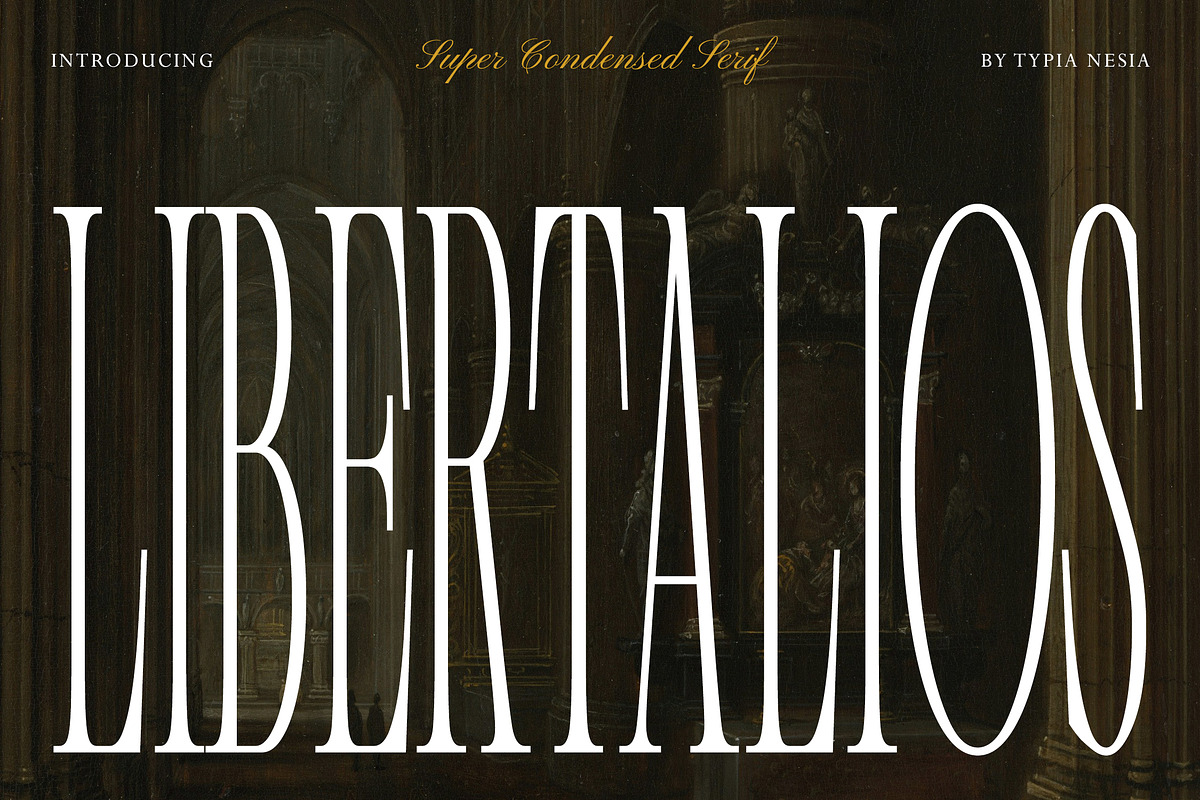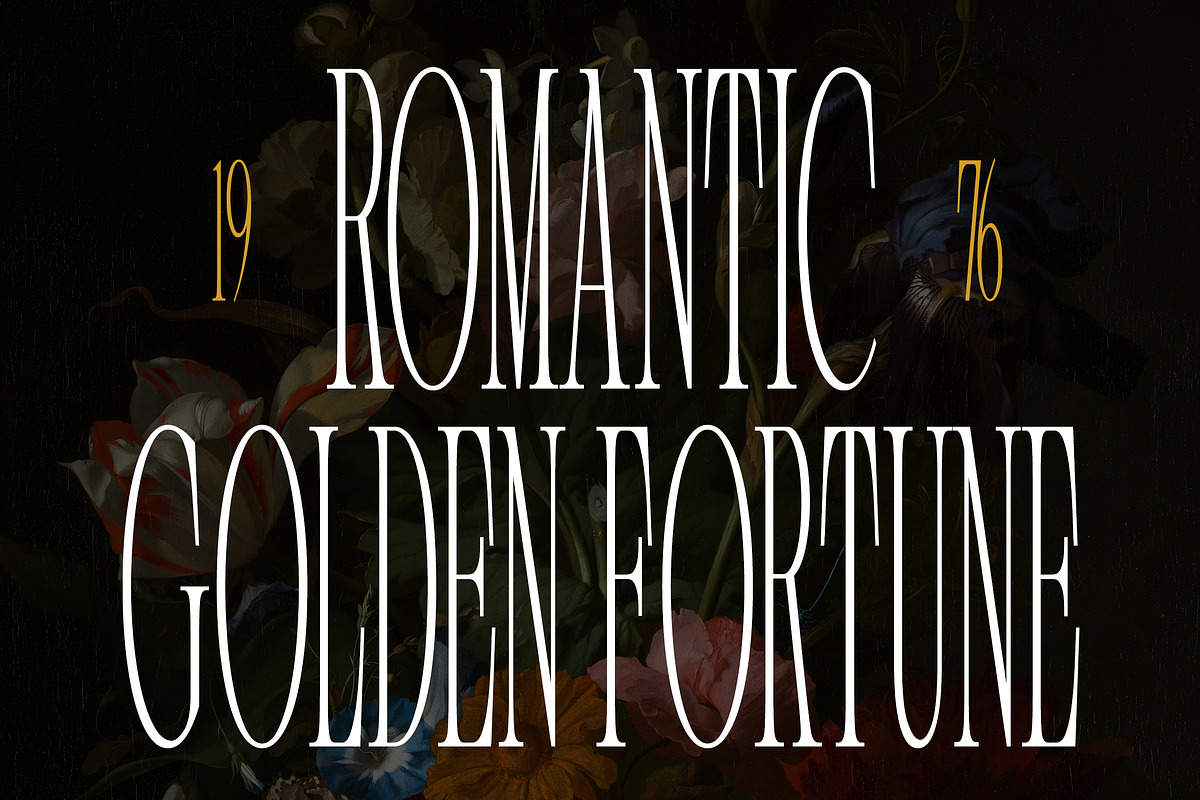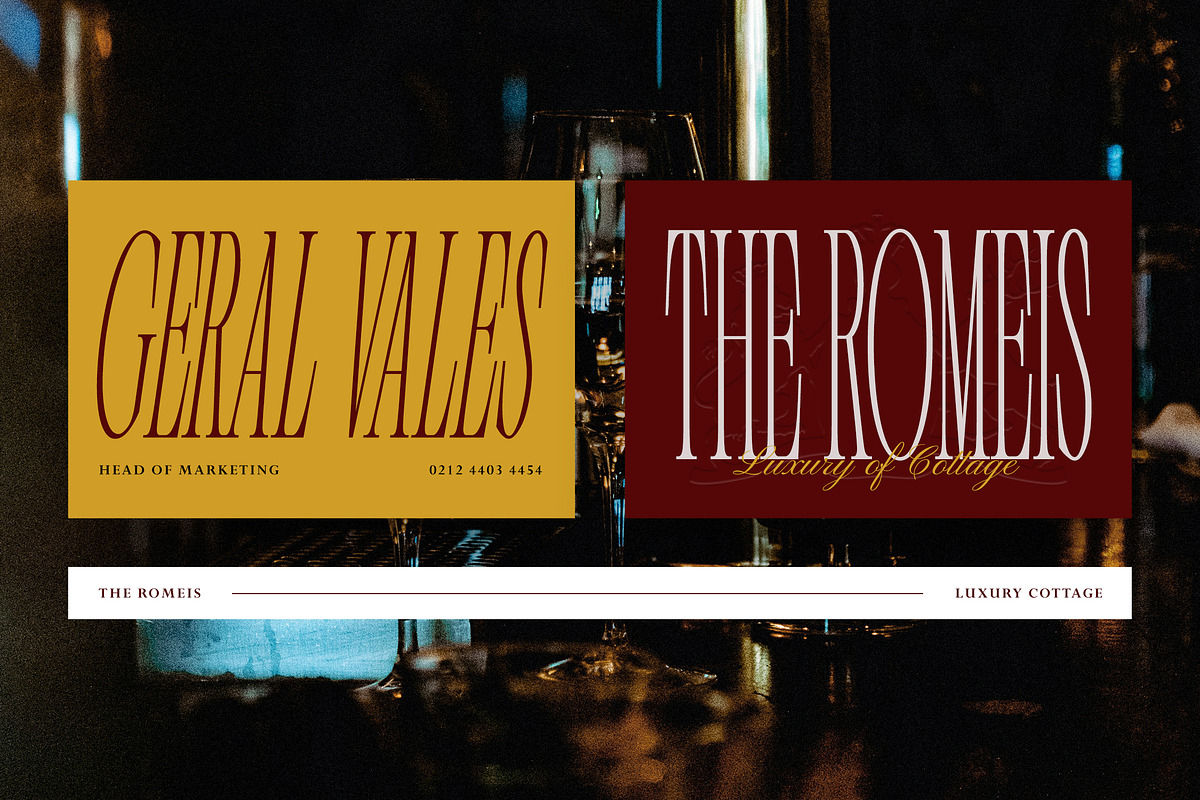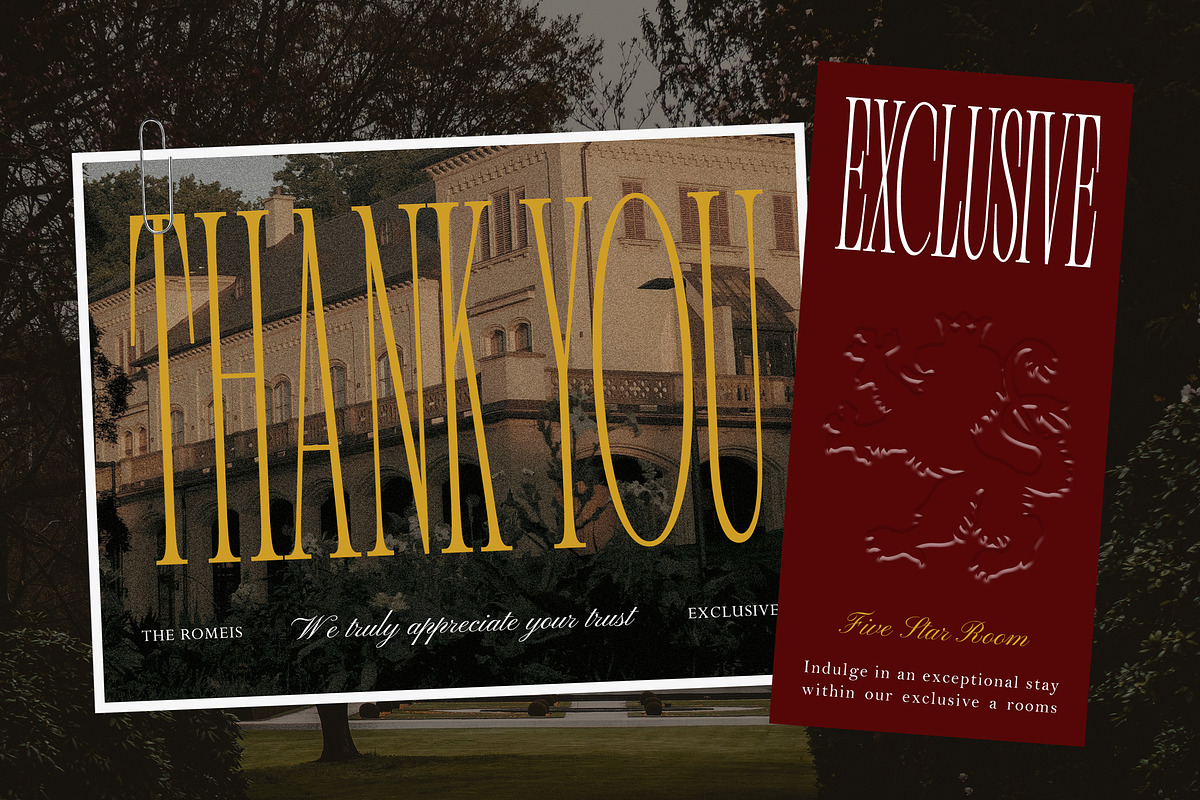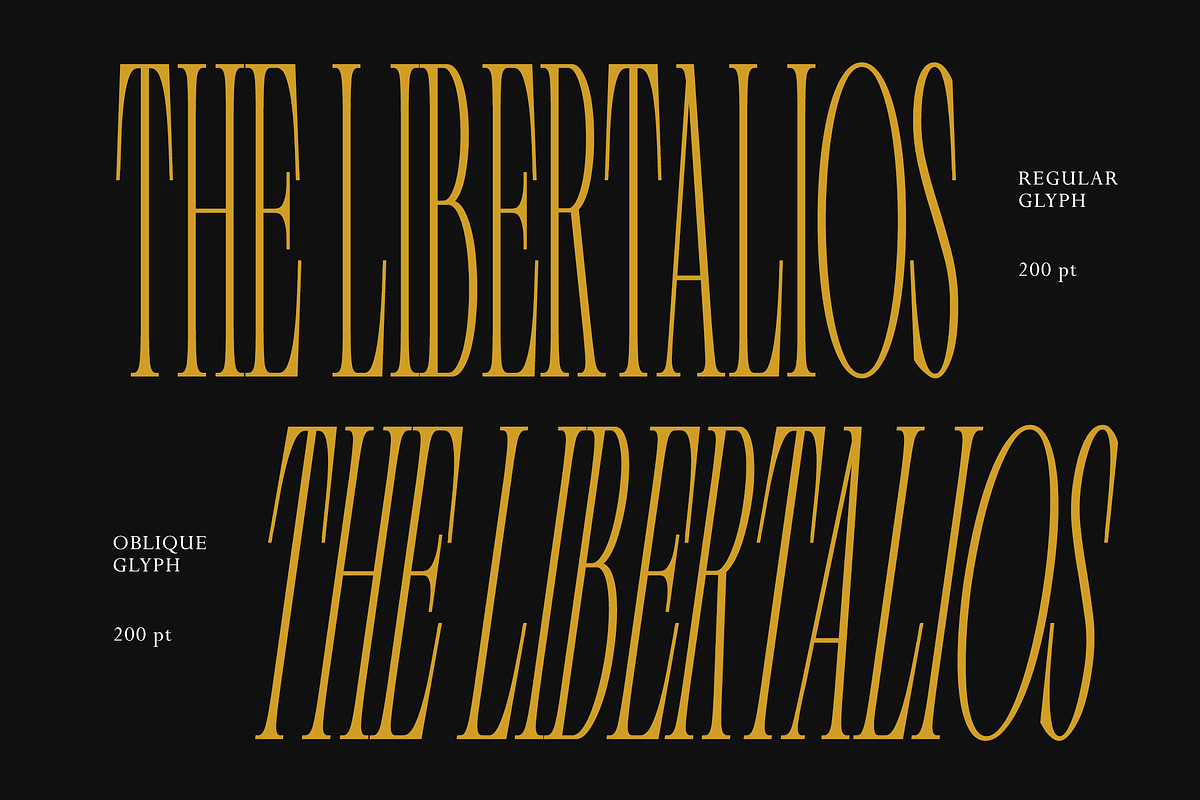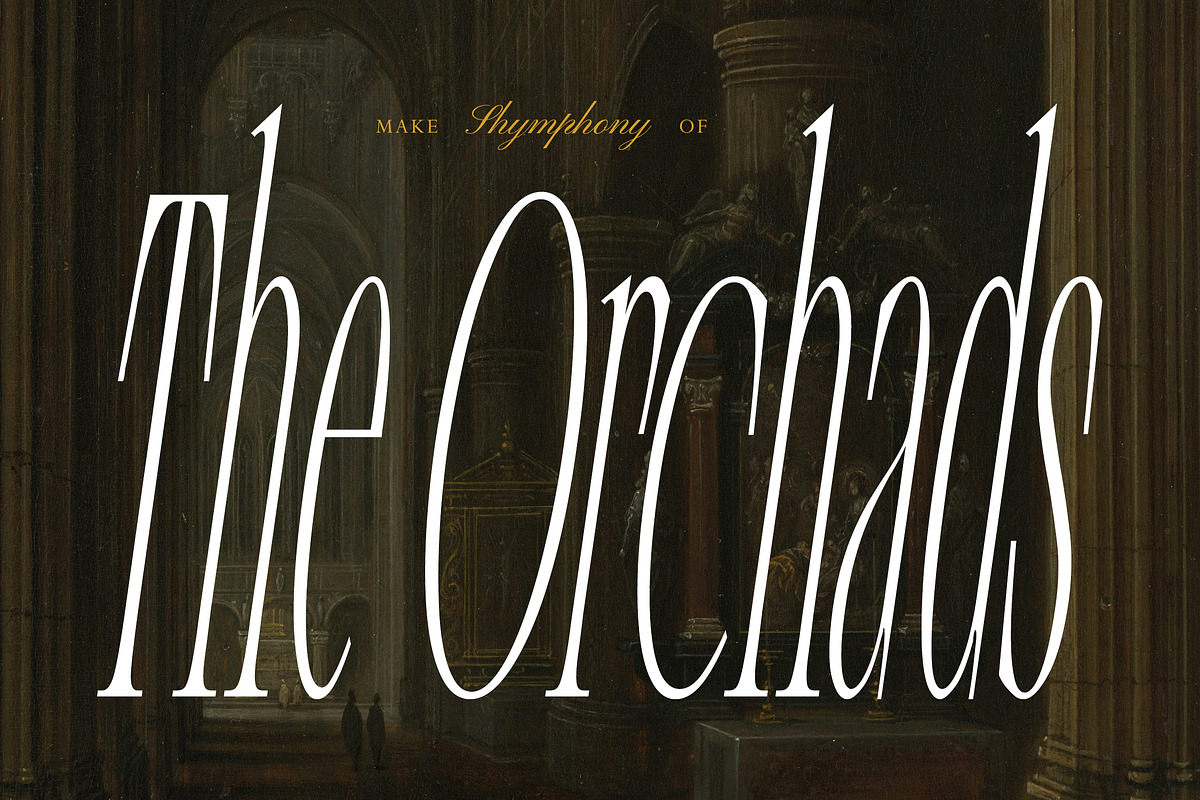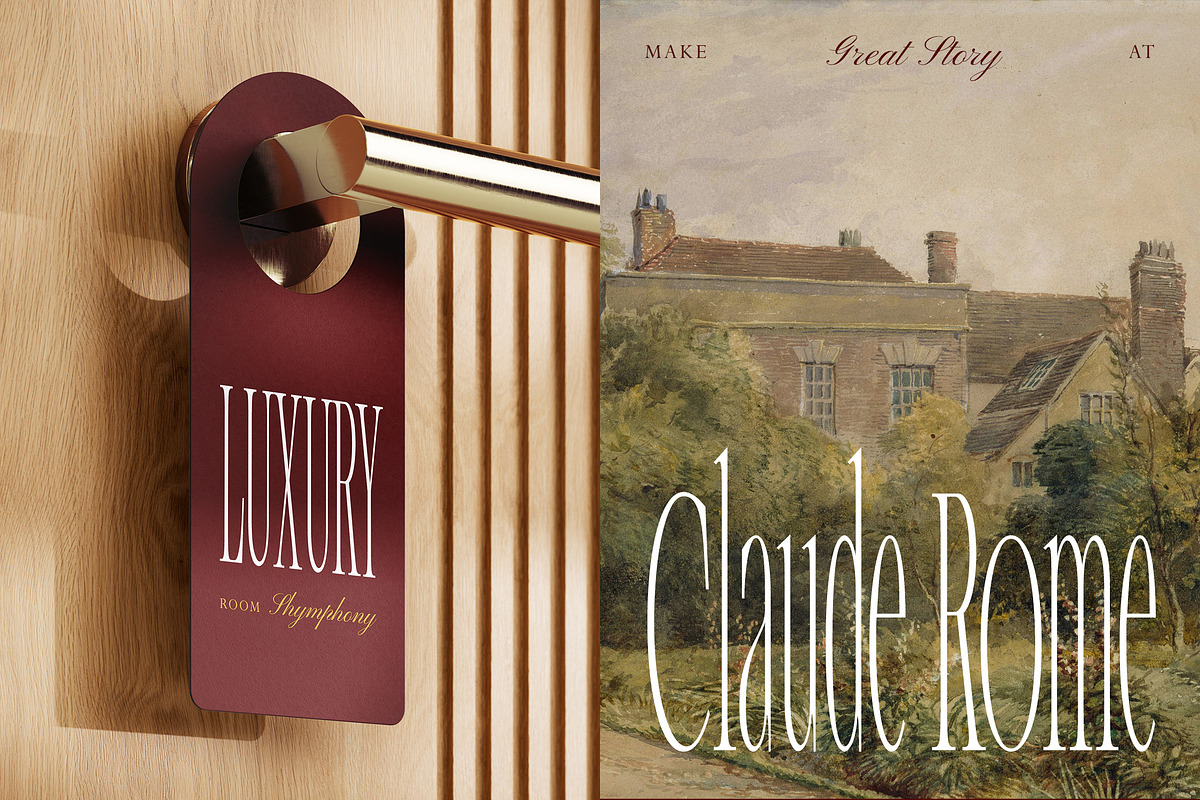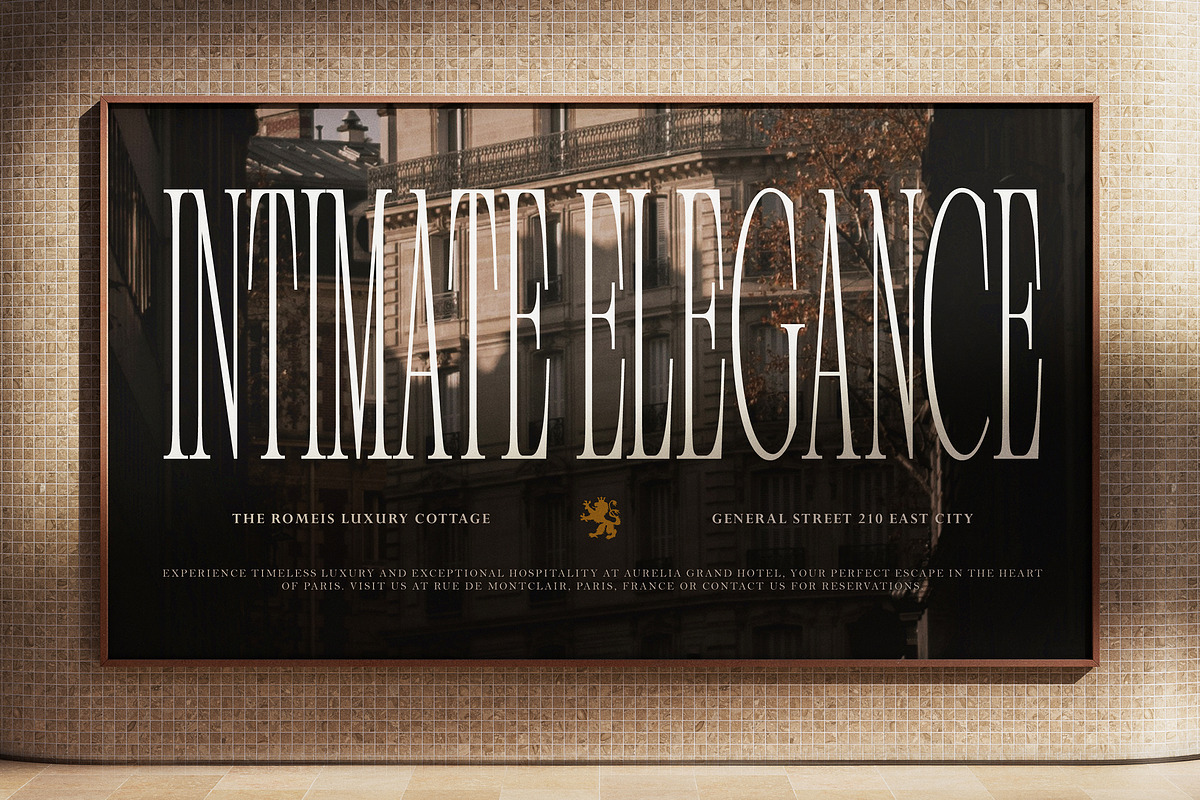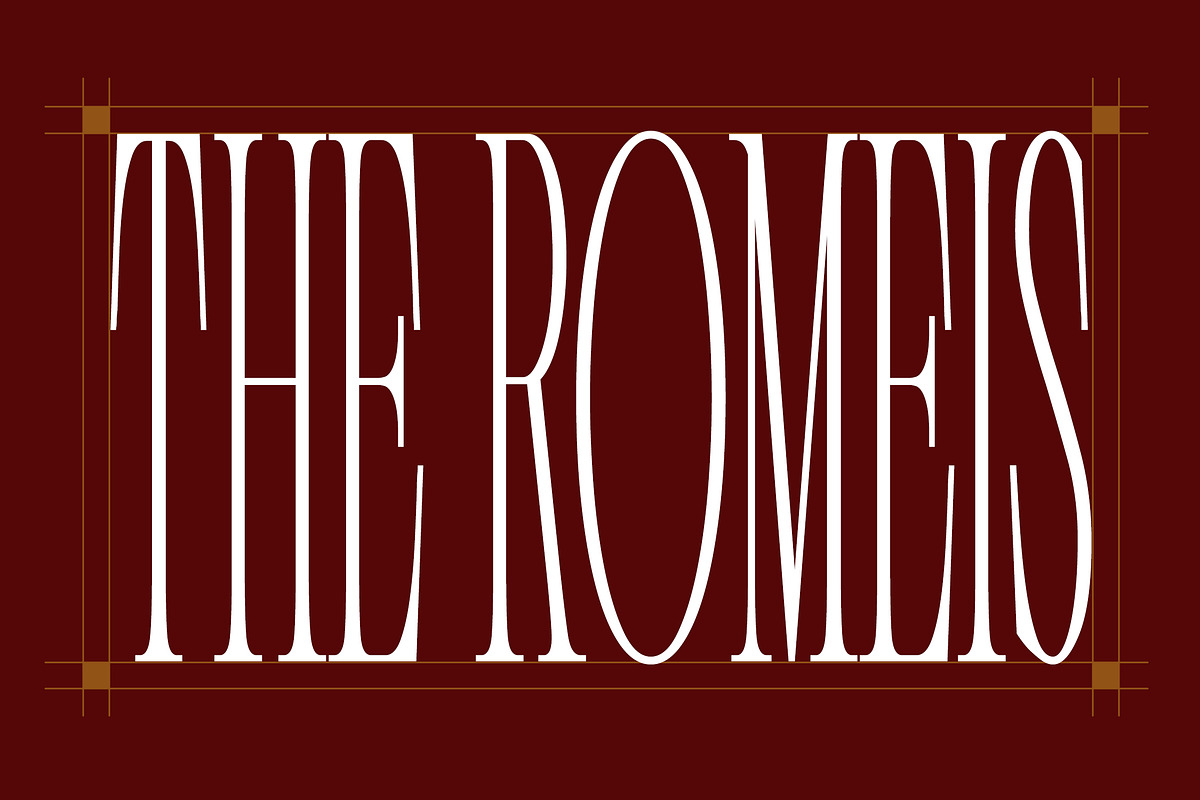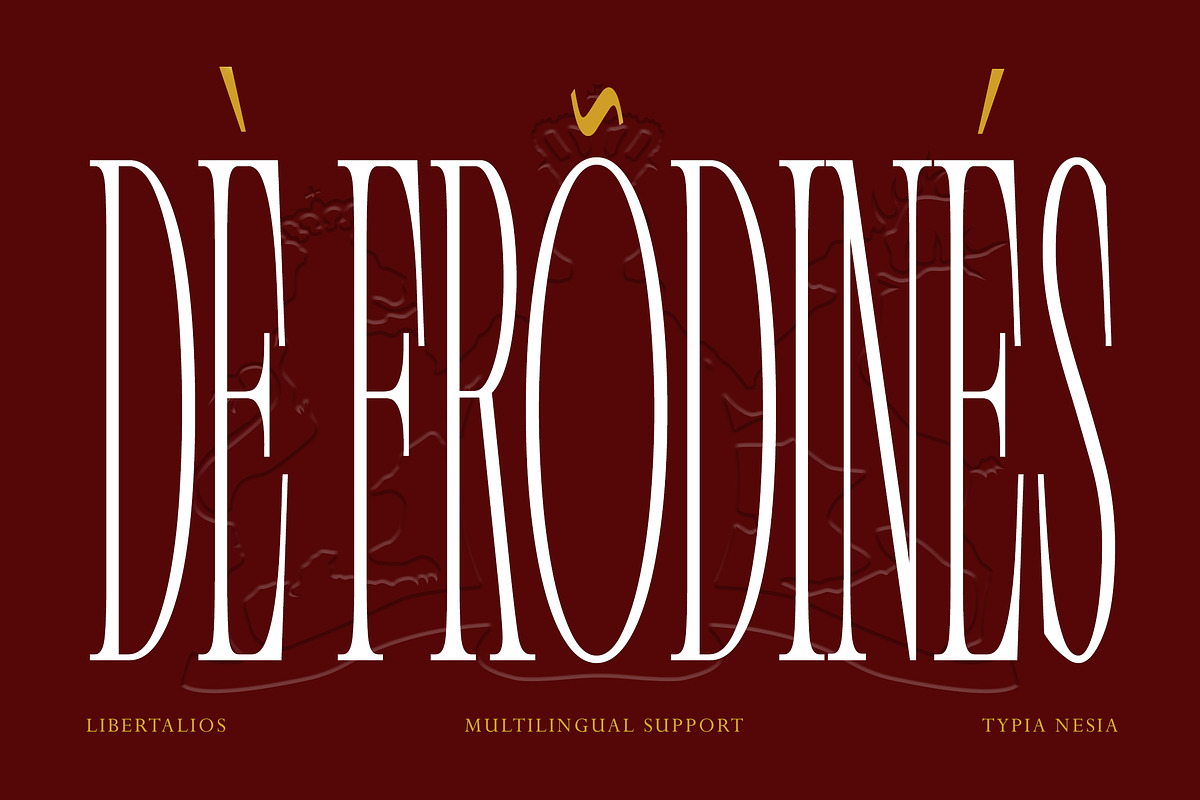
Libertalios - Super Condensed Serif
Libertalios is a super condensed serif font featuring dramatically tall proportions, refined serifs, and high-contrast letterforms. Designed to evoke luxury and timeless elegance, it delivers a commanding visual impact that stands out across high-fashion editorials and prestige branding.
Perfect for magazine covers, editorial layouts, luxury packaging, high-end perfume branding, and dramatic poster headers. It features an ultra-narrow silhouette and sharp verticality, making it versatile and easy to use across a wide range of design needs.